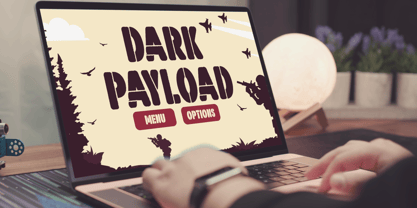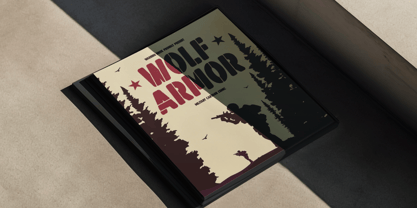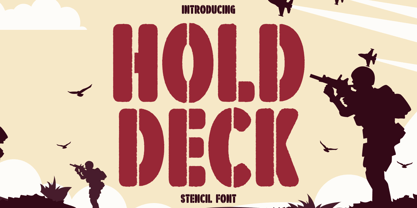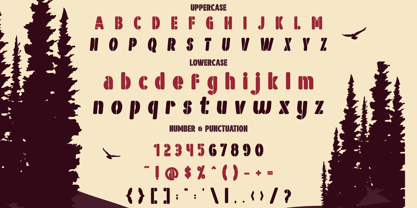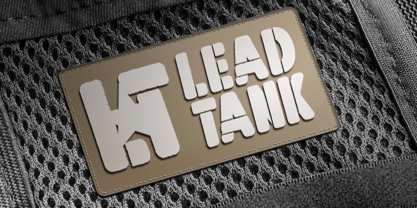
Hold Deck
Die Schriftfamilie Hold Deck wurde von Yesie Erma Yunita entworfen und von Shanaf veröffentlicht. Hold Deck enthält 2 Stile und Familienpaketoptionen. Mehr über diese Familie
Hold Deck Stencil Font is a bold and powerful display typeface inspired by classic army stencils and modern design needs. Each character is crafted with sharp, clean cuts that mimic authentic stencil shapes, giving it a rugged yet structured appearance. The font carries strong military vibes while keeping a playful edge, making it versatile for both serious and fun projects. Its thick, solid strokes ensure maximum readability, while the stencil cuts add unique personality and style to every word. The overall look feels commanding and confident, ideal for designs that need to stand out with authority.
This font is perfect for projects that demand a bold visual impact such as posters, film titles, video game covers, and branding with a strong presence. It also works beautifully on packaging, stickers, apparel prints, and even creative invitations with a military or adventurous theme. With uppercase, lowercase, numbers, and full punctuation included, Hold Deck Stencil Font offers flexibility for both digital and print use. Whether you are crafting a logo, a magazine cover, or a bold business identity, this font delivers a balance of strength, style, and creativity.